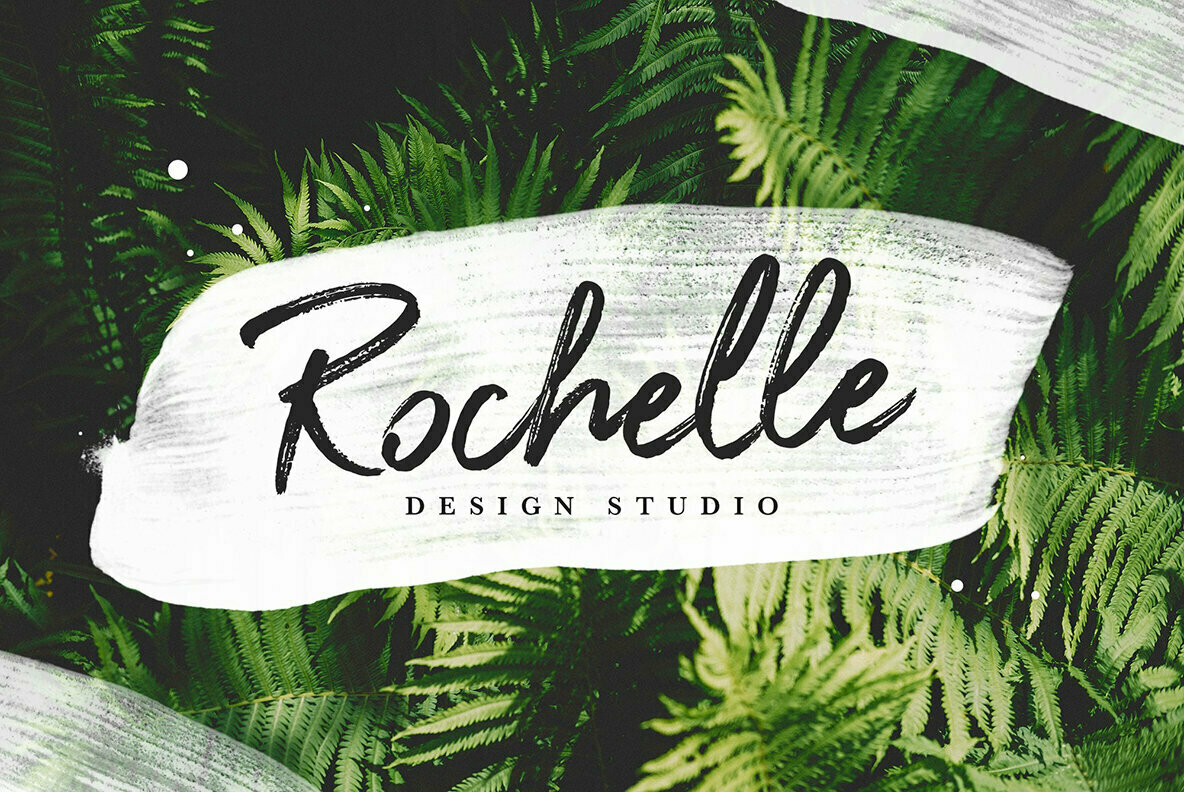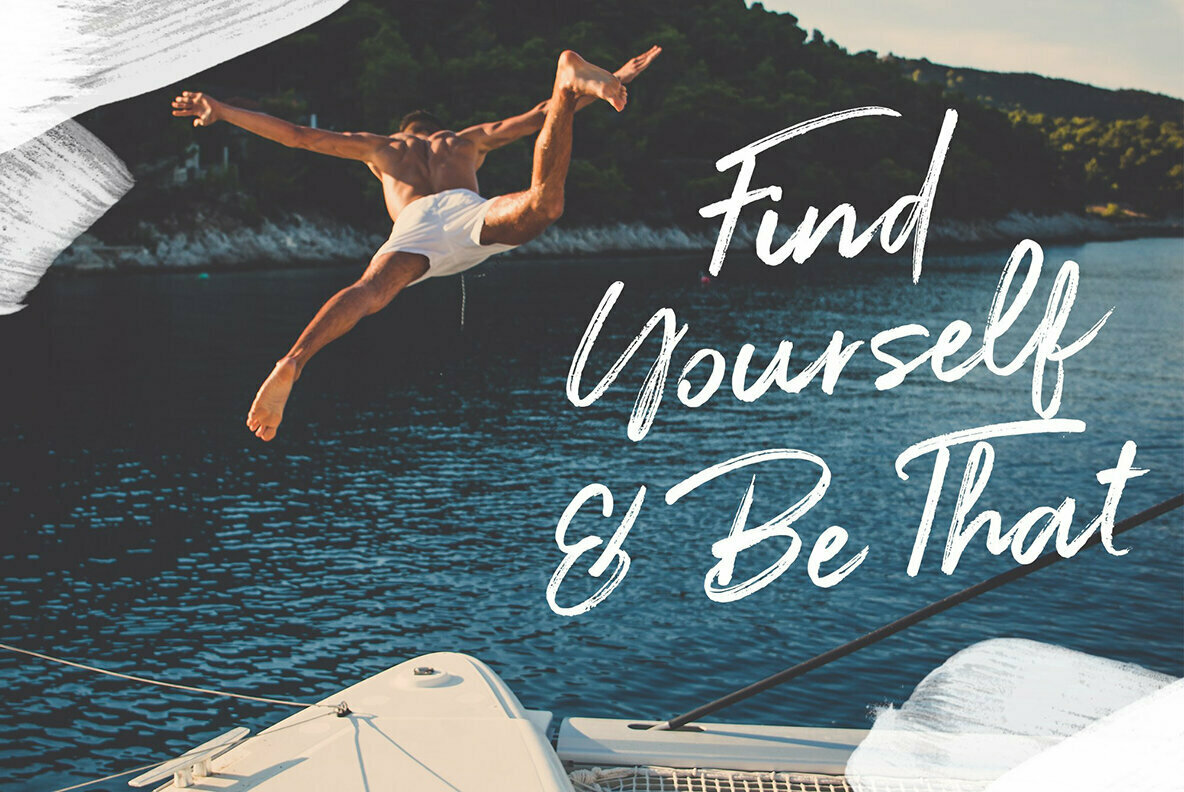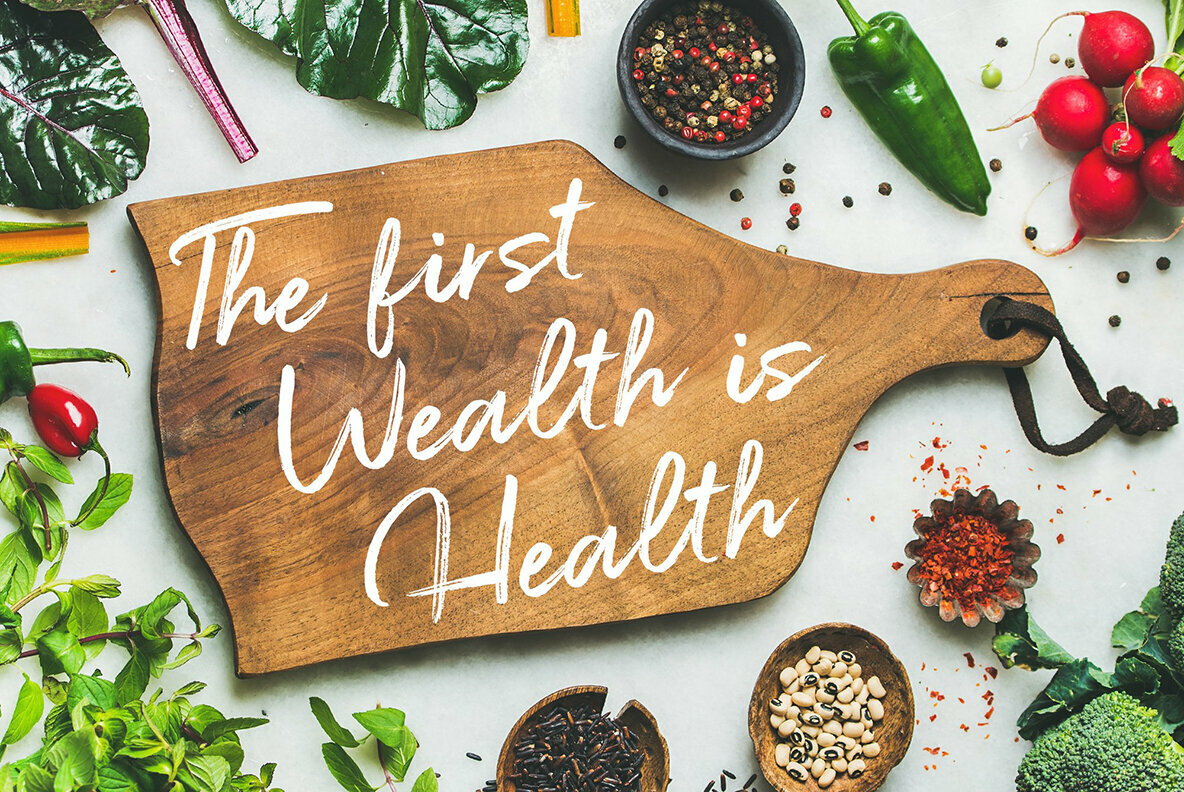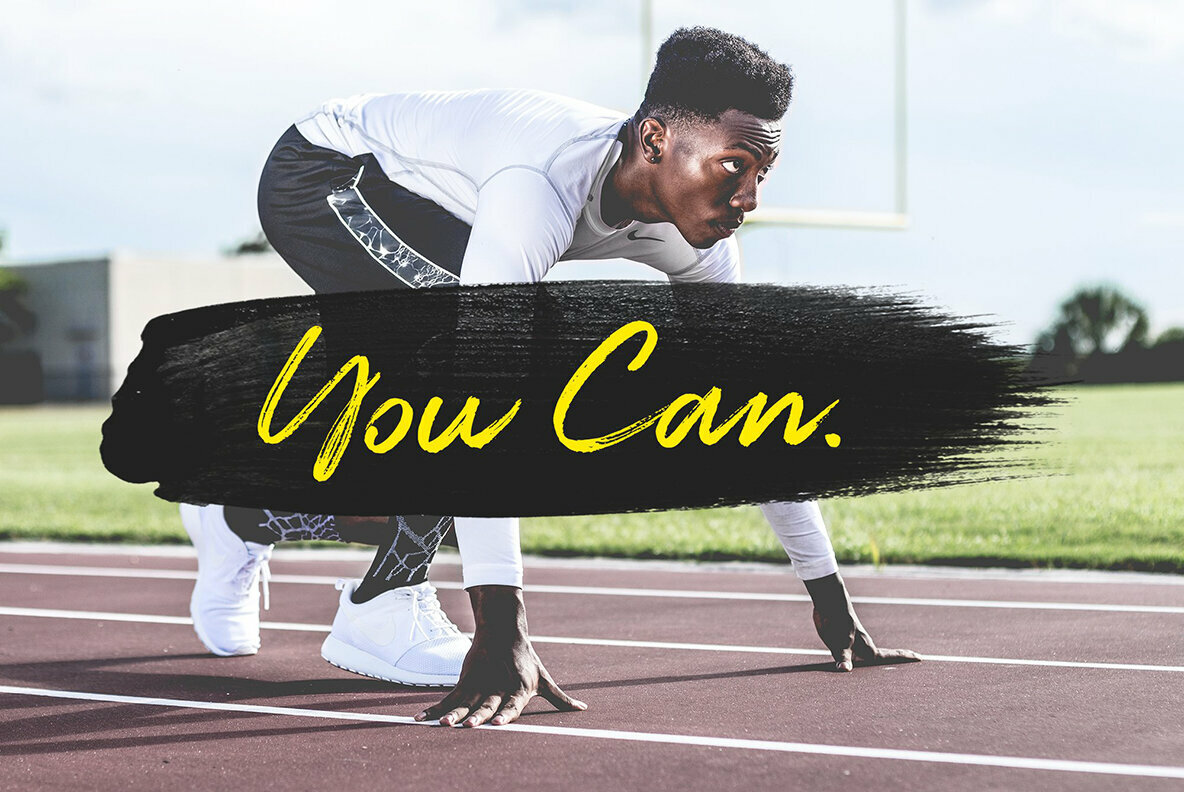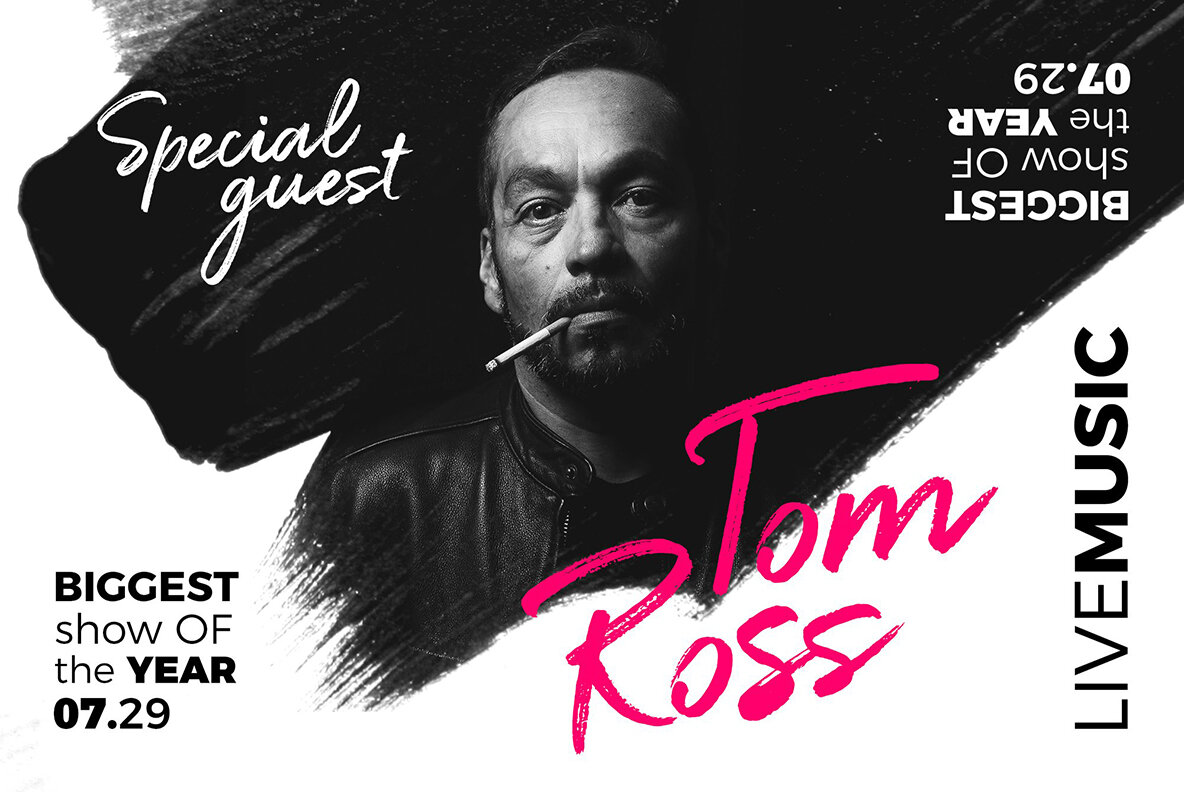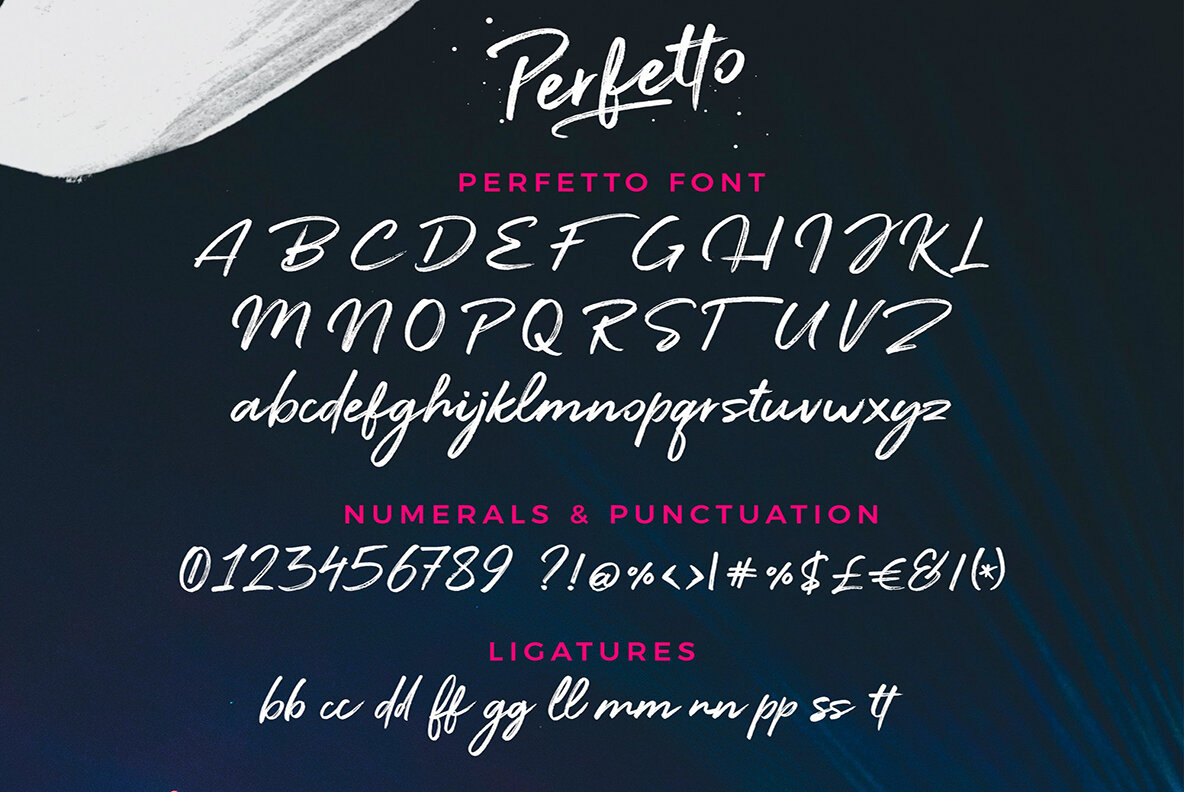
Perfetto 1
Perfetto is an handwritten brush Font with authentic dry brush strokes drawn on paper. Perfect for logo designs, poster design, social media, typographic quotes over photos, book covers and packaging design. The font features several ligatures for lower case characters, accessible in the Adobe Illustrator Glyphs panel, or under Stylistic Alternates in the Adobe Photoshop OpenType menu.
International support for most Western Languages is included.